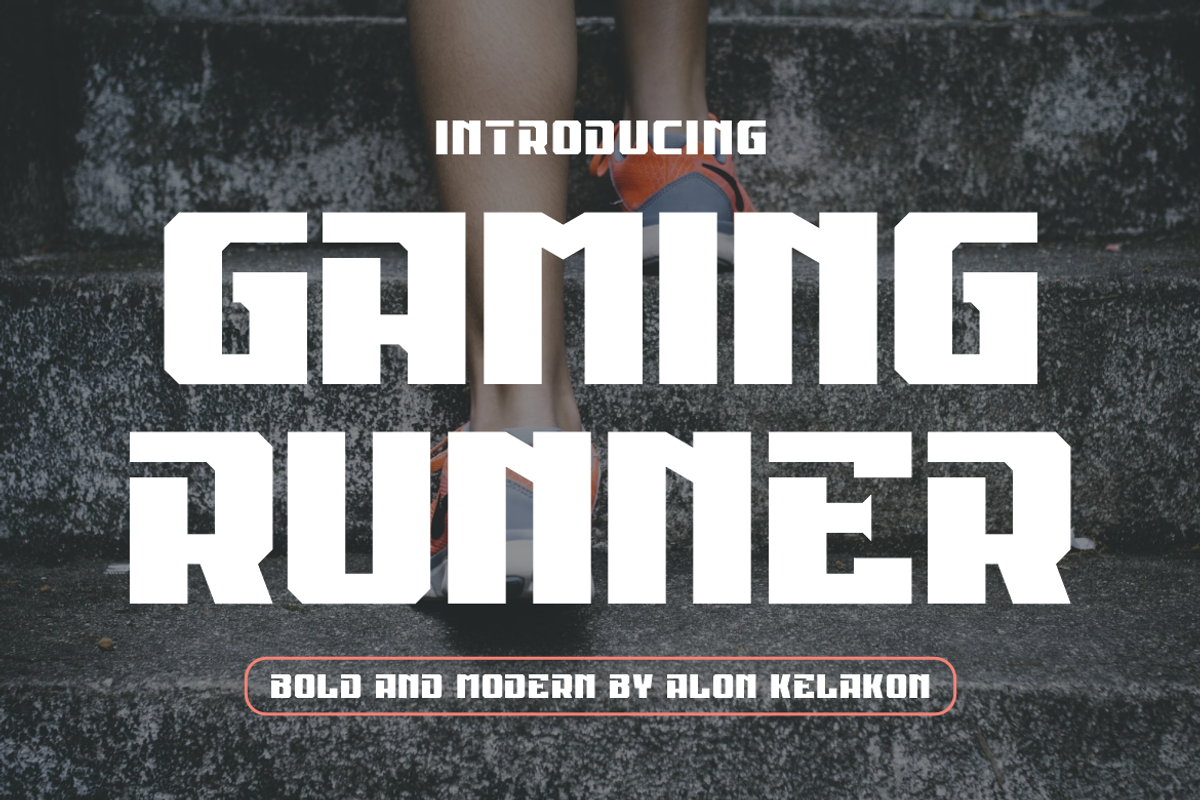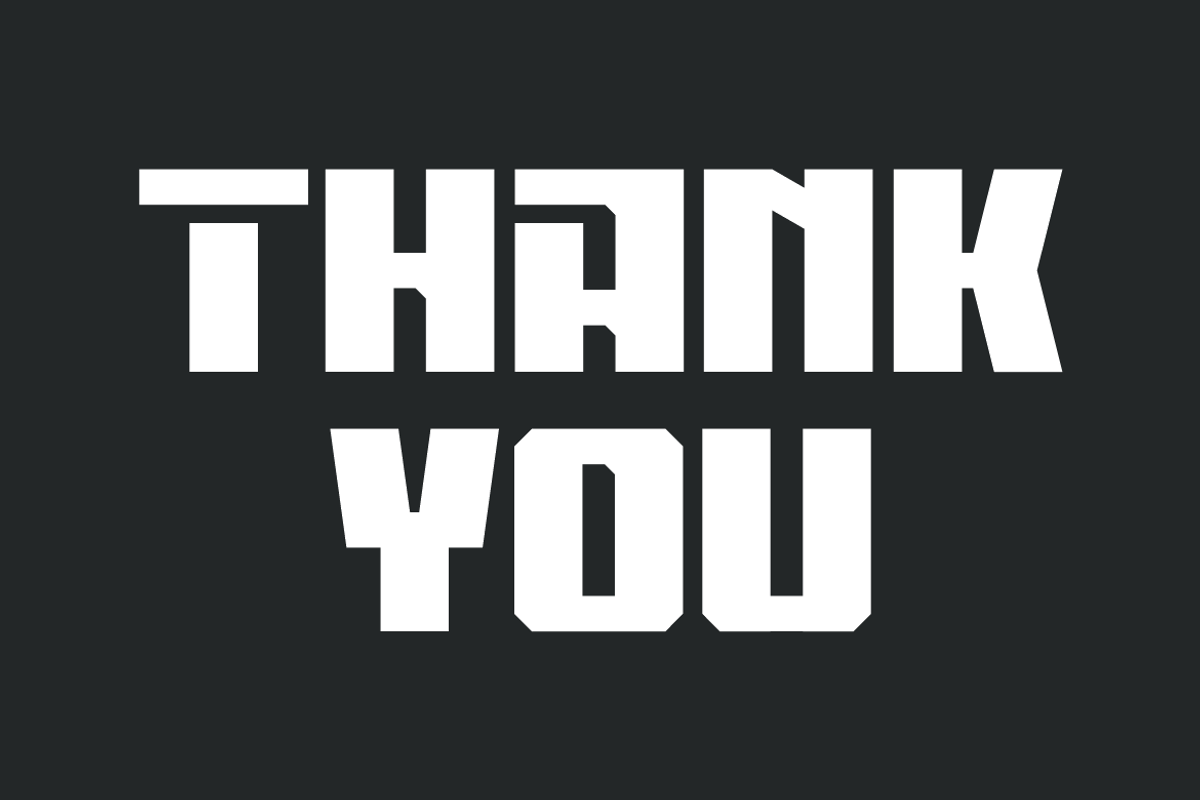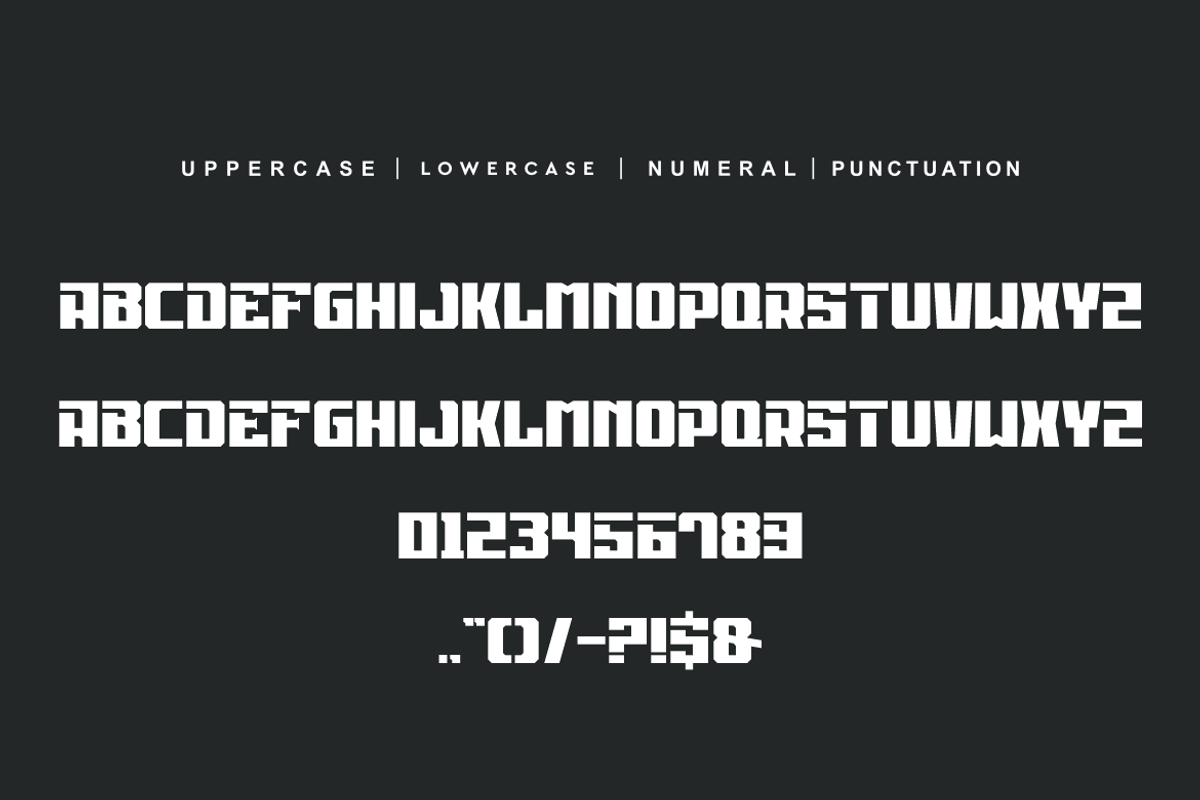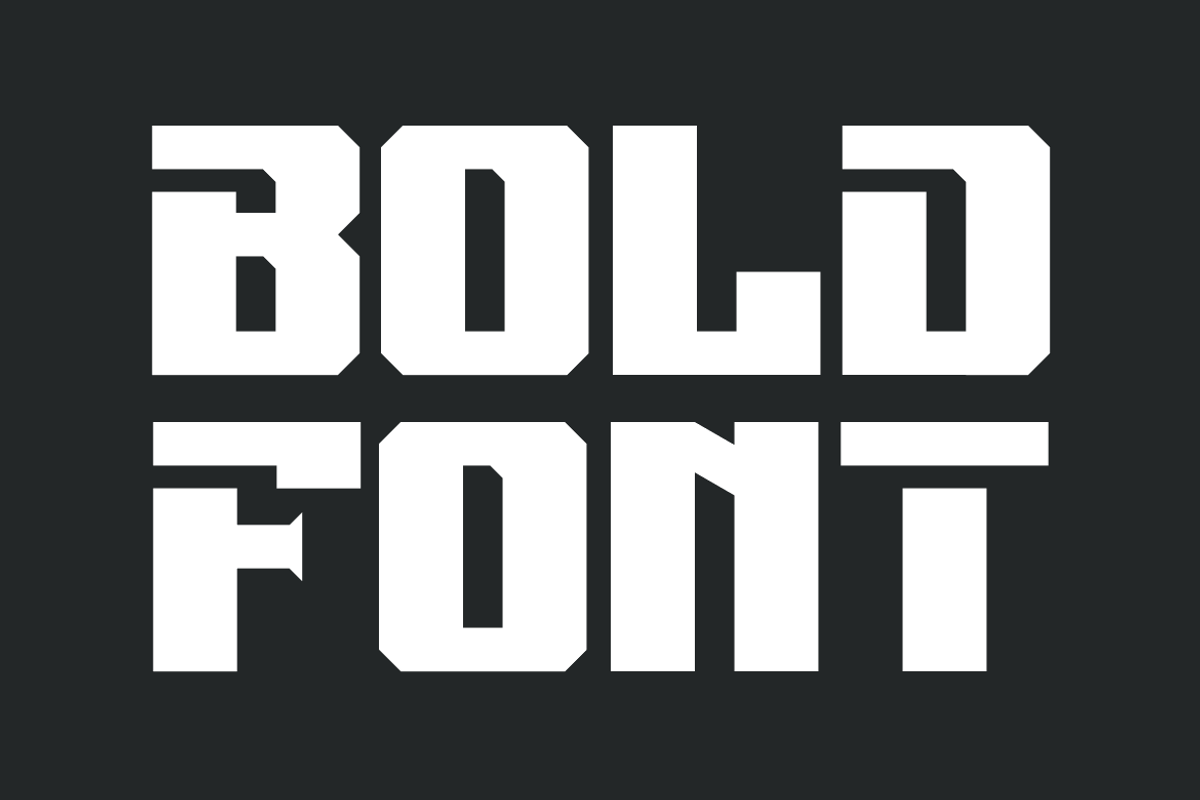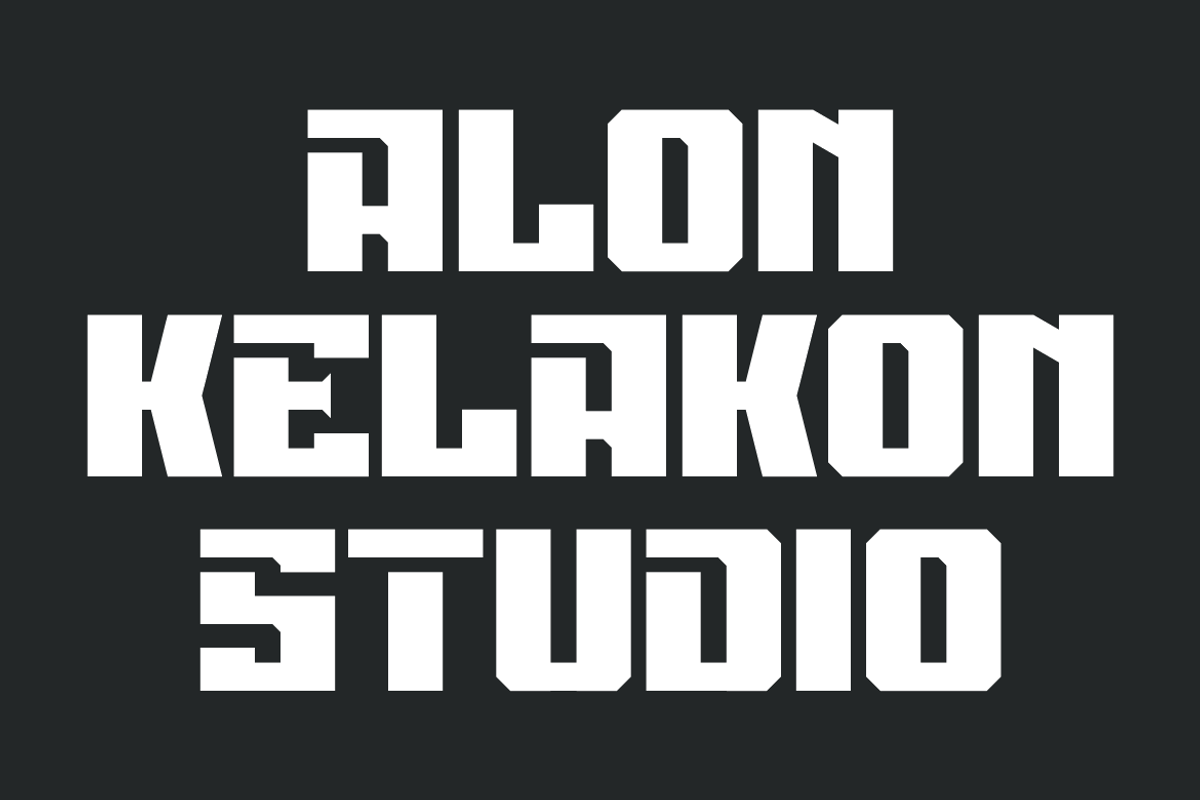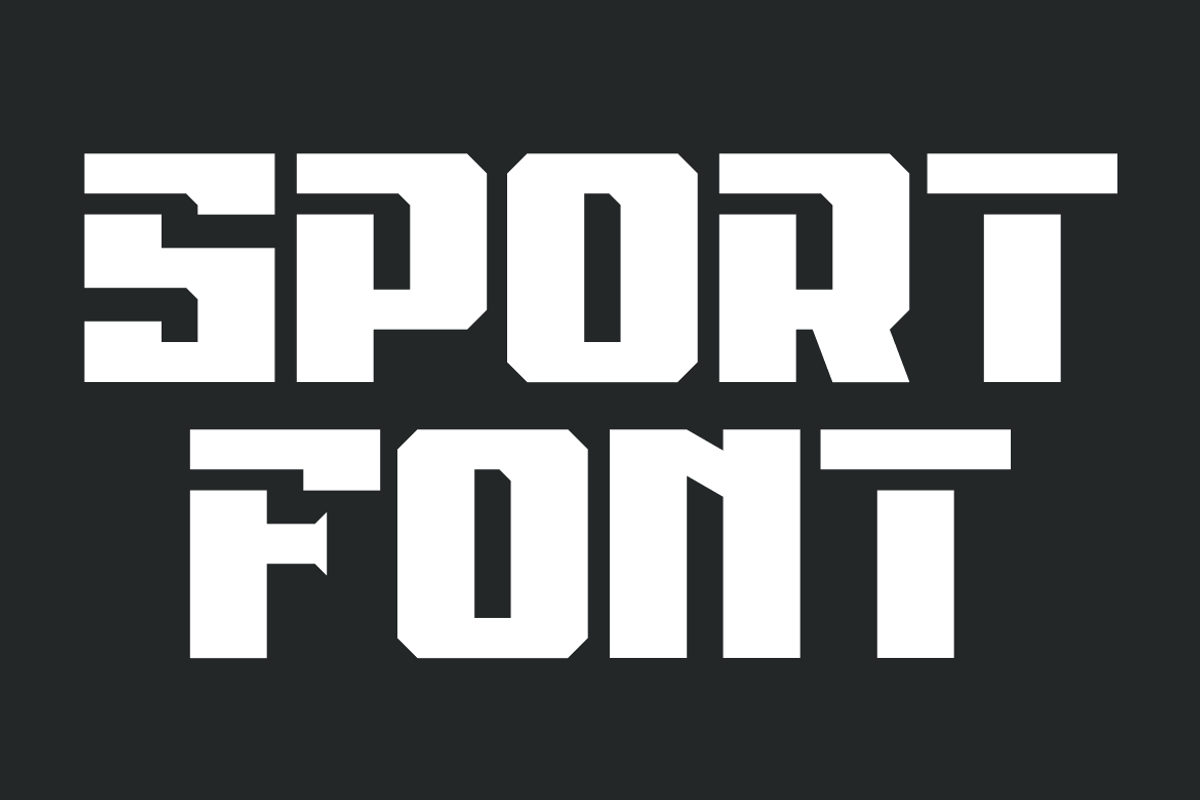
Gaming Runner
Gaming Runner Font is unique . Ready to use for your design like labeling, movie sceen, poster, movie title, gigs, album covers, logos, and much more.